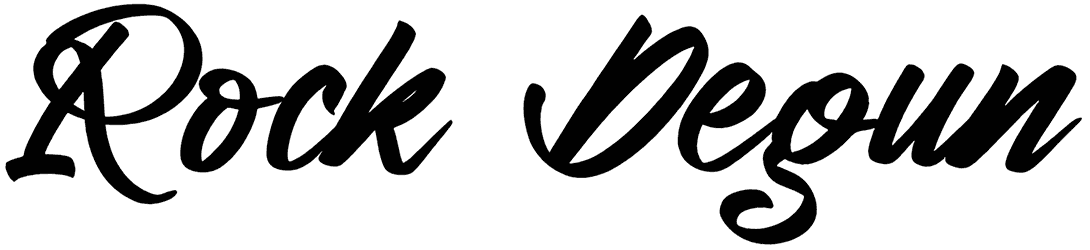
Rock Degun Font
In case your projects lack a vintage flair, Rock Degun is here to save the day. This script font is perfect for casual remarks and can be utilized in a variety of print and digital designs, such as album covers, movie titles, and letters, thanks to its flowing and attached italic appearance.